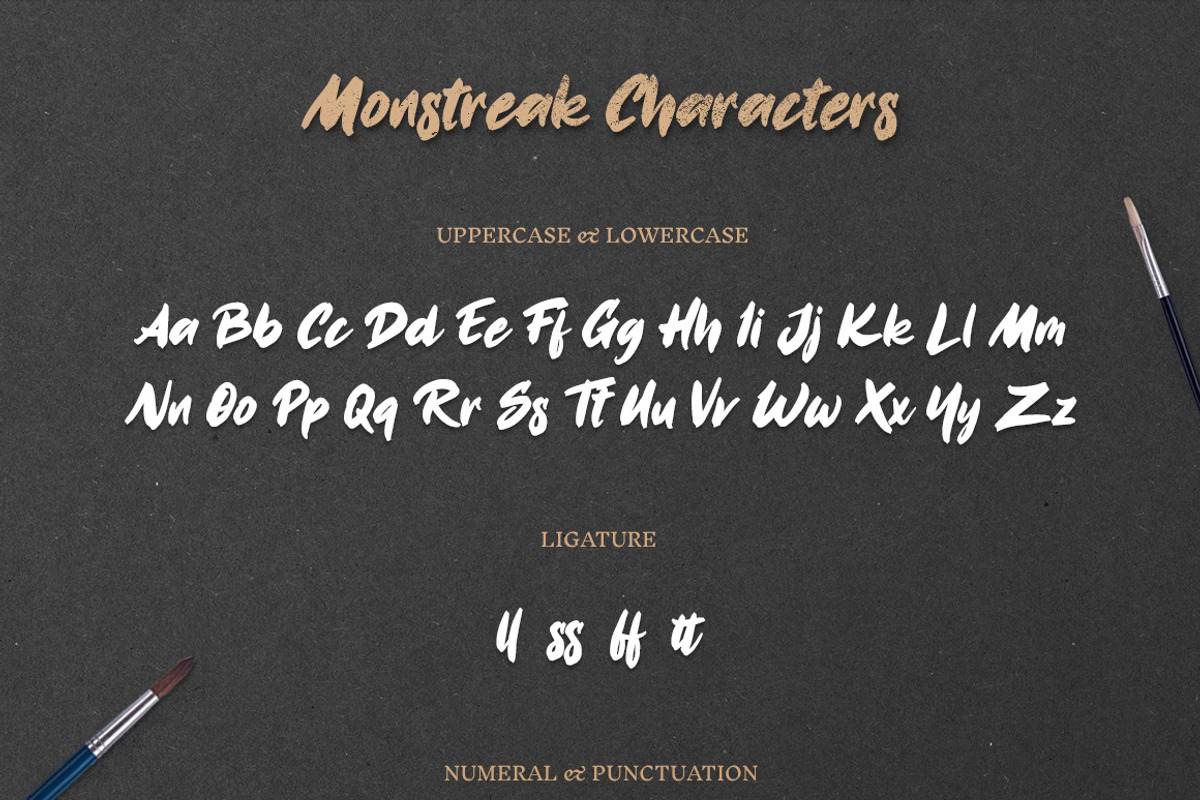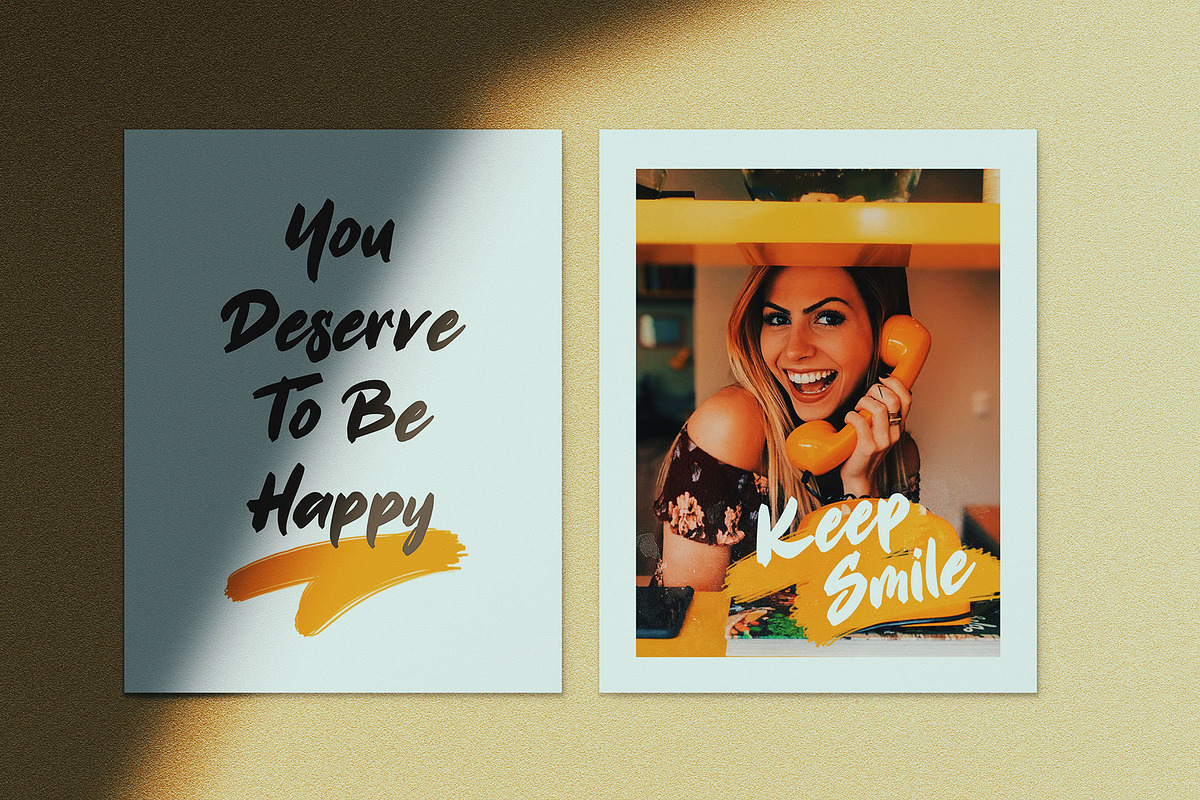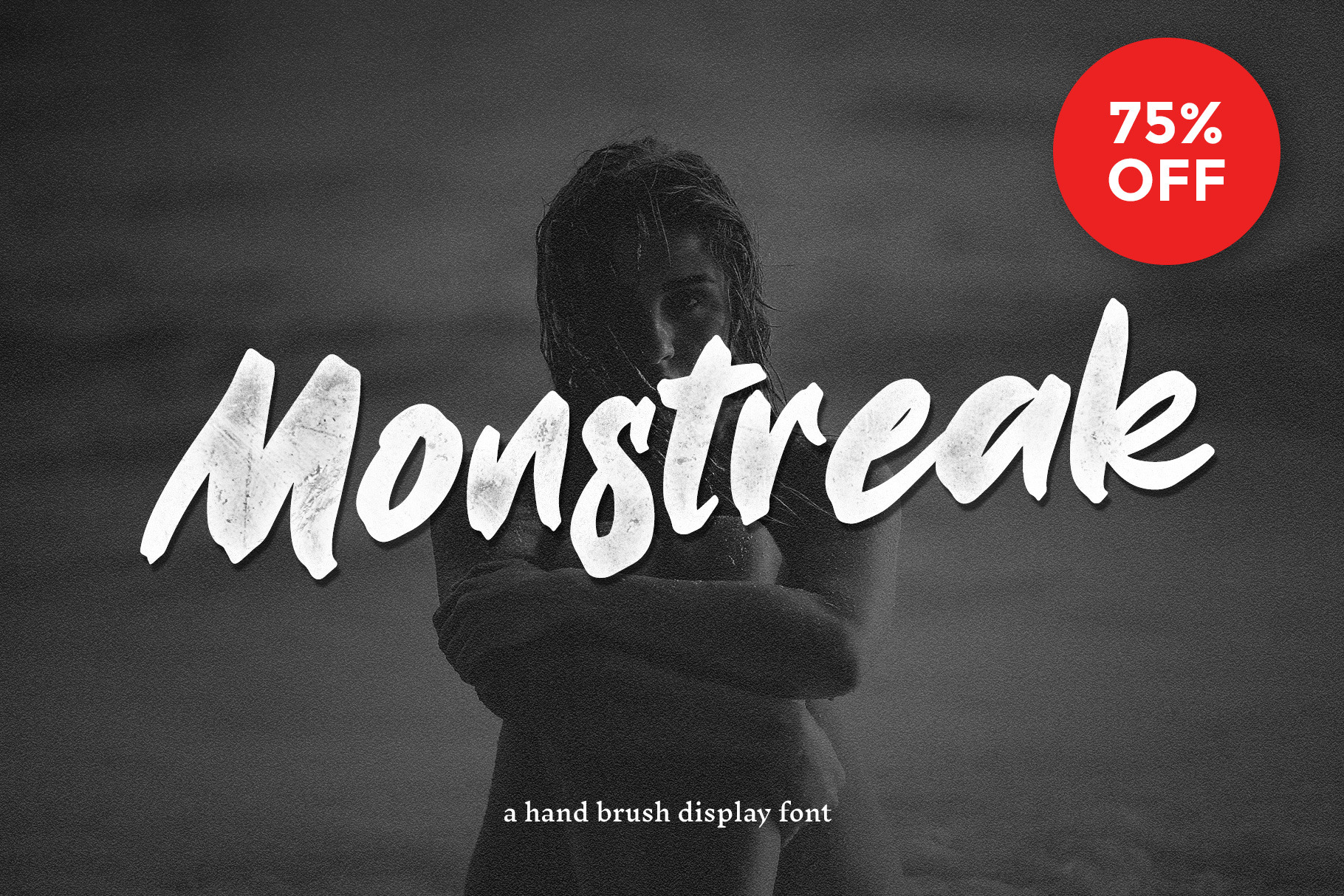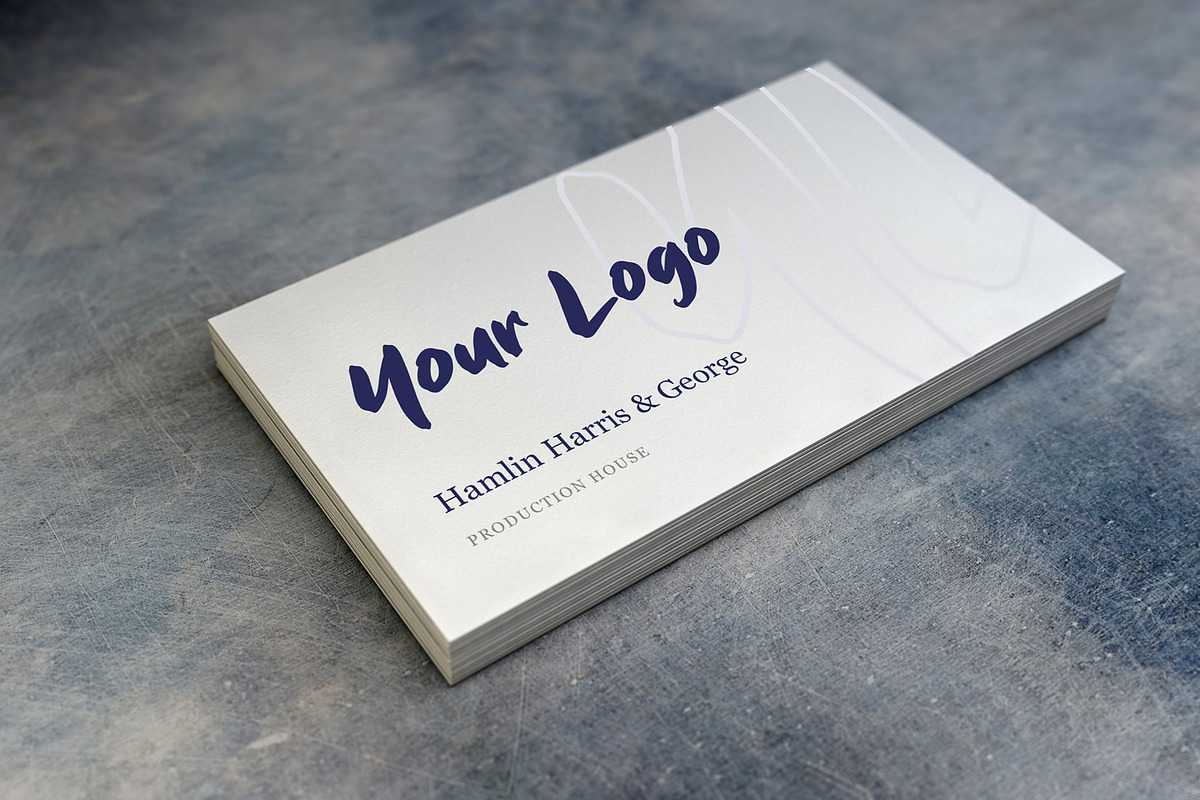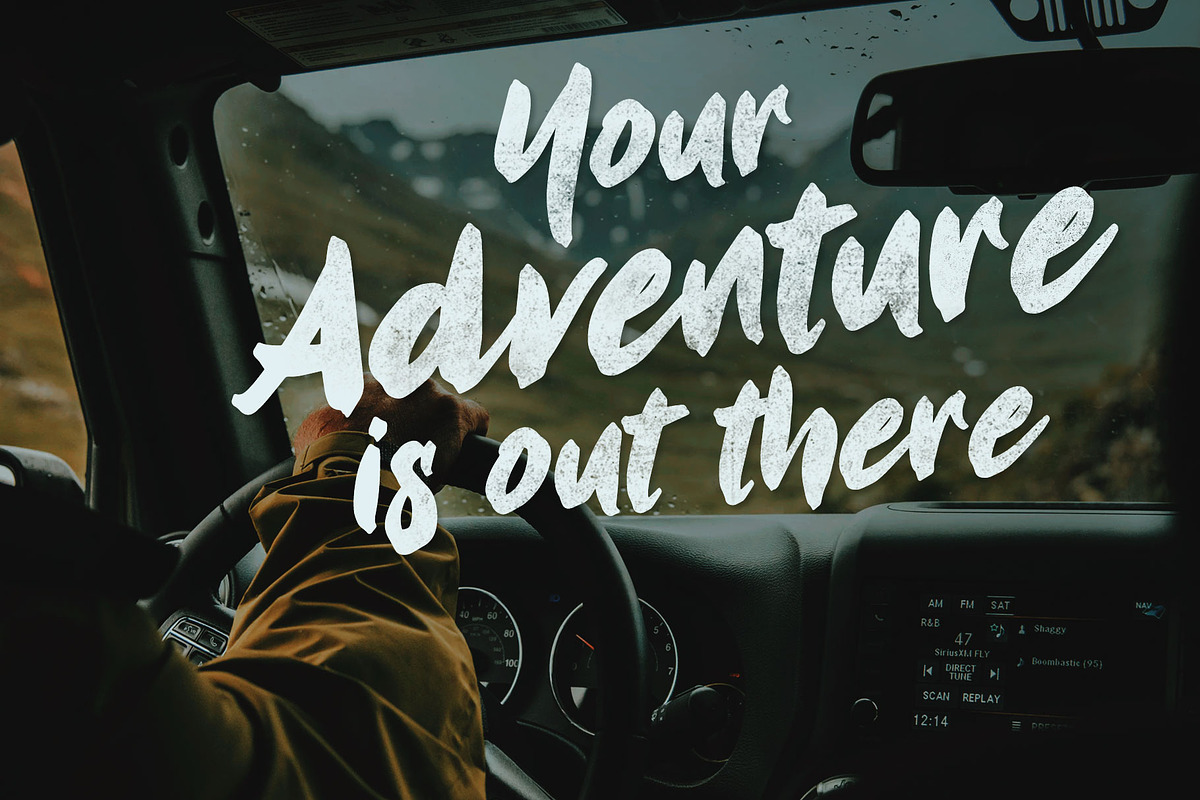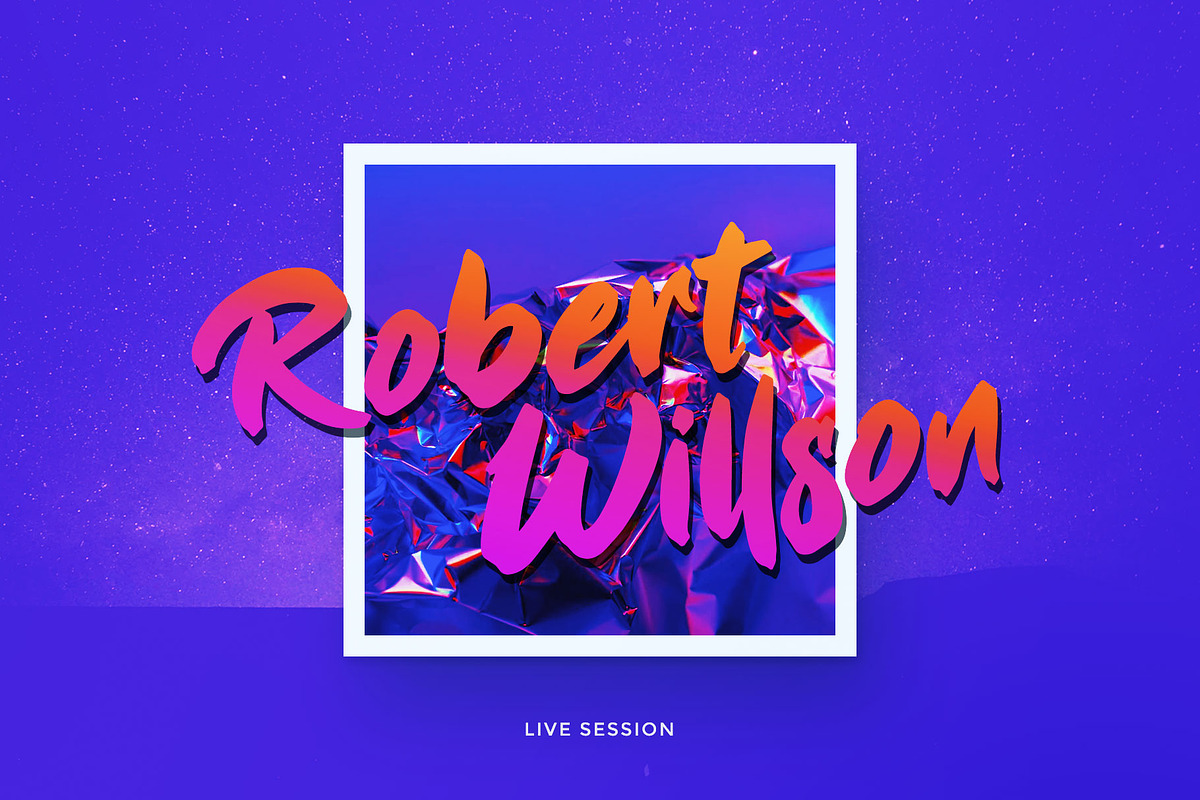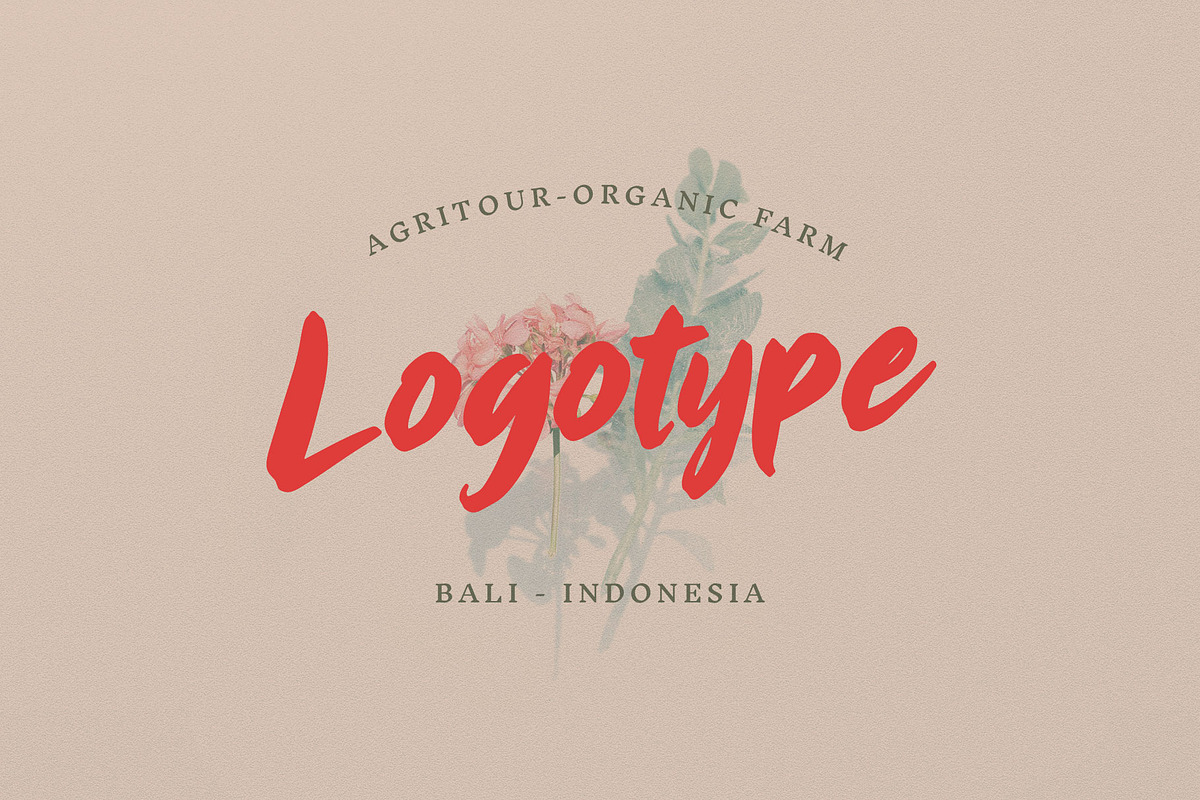
Monstreak - Display Font (75% OFF)
Introducing Monstreak a hand brush display font. The font is great for creating wordmarks, titles, poster, cover music art, print template, business card, logo, t-shirt, quote, web design, and any other graphic design.